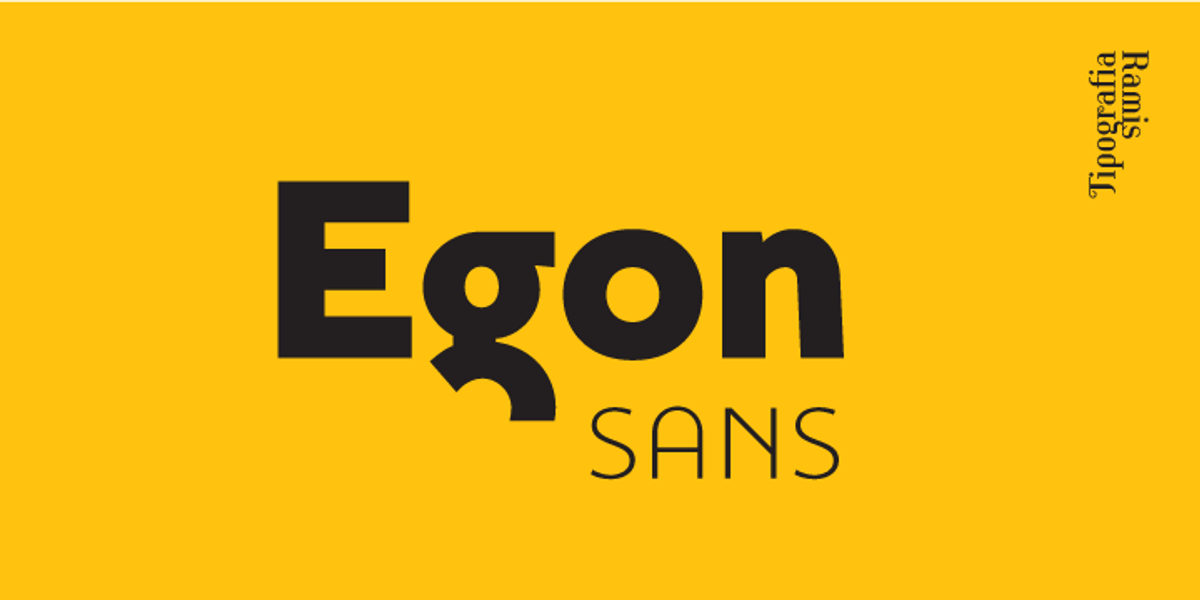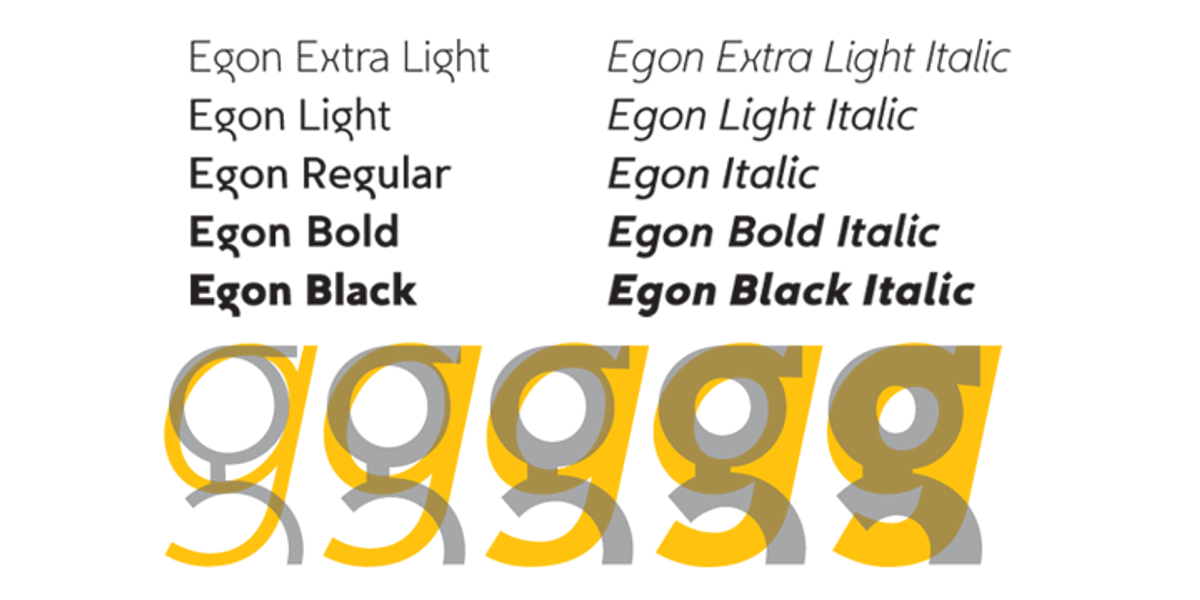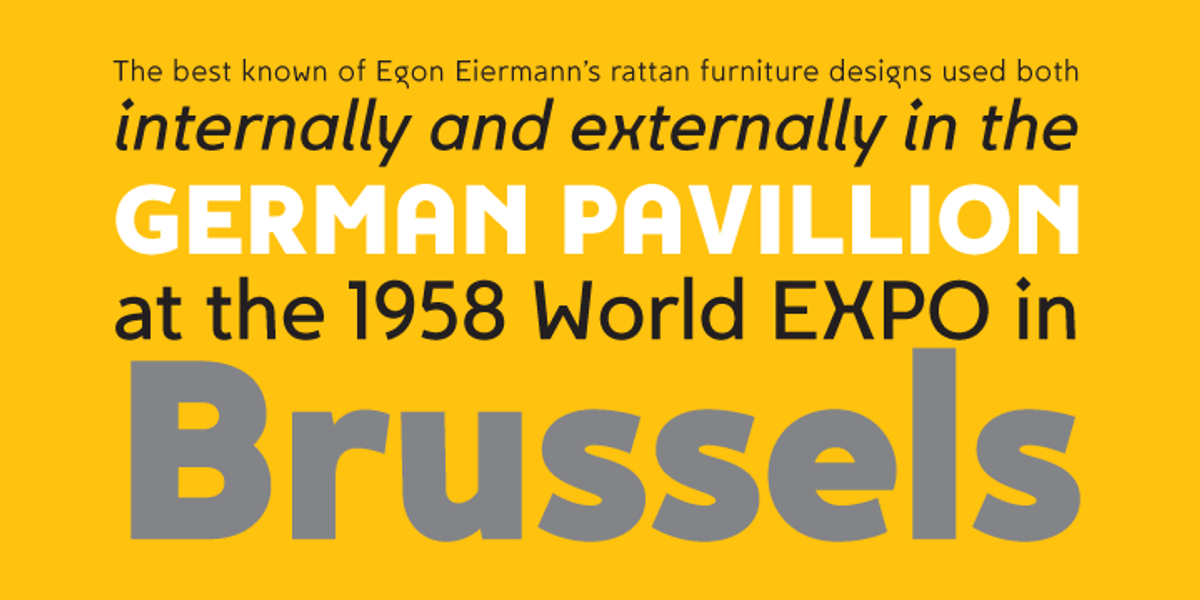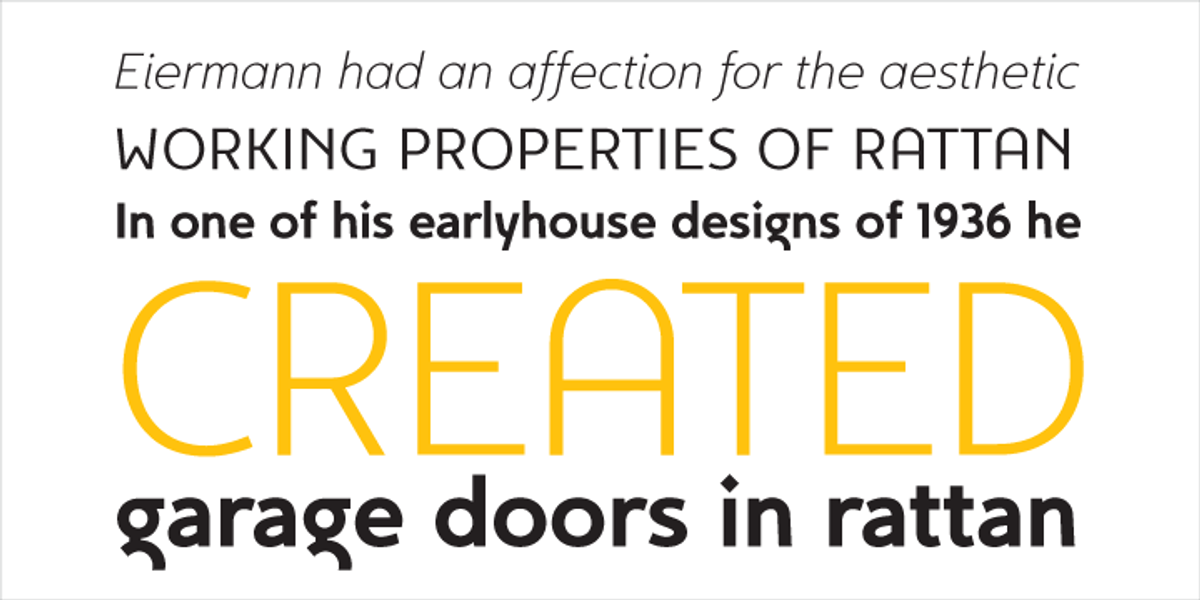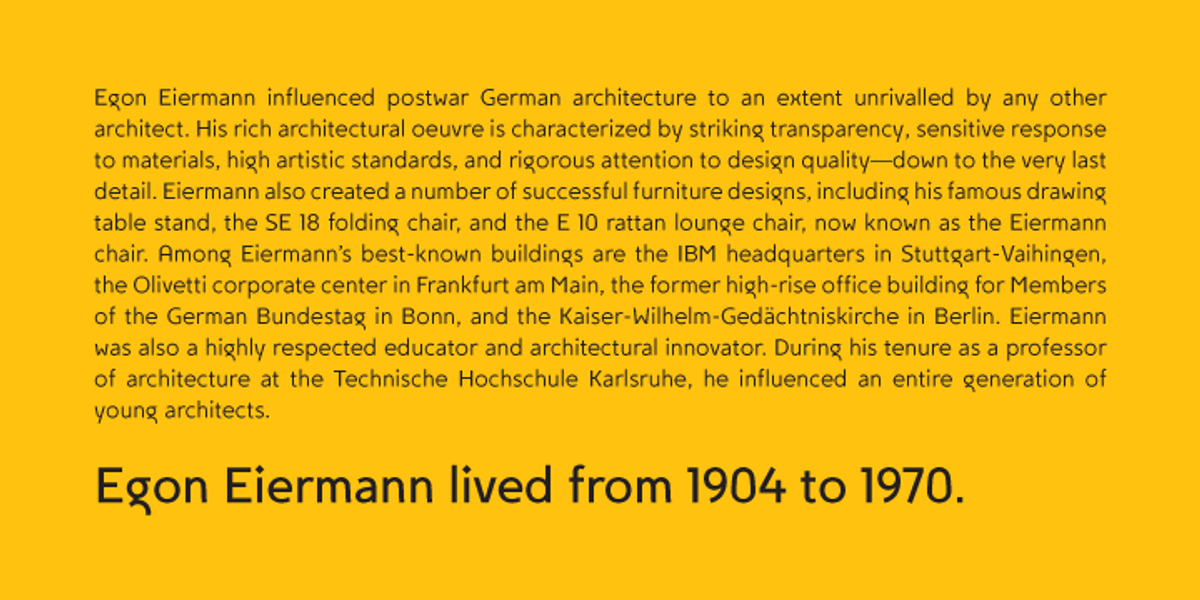
Egon Sans
Egon Sans is a geometric sans serif typeface family designed for both text and display use. It offers ten styles encompassing extra-light to black weights in roman and italic variations. Egon Sans' clean and modern aesthetic makes it suitable for a wide range of applications, including logos, posters, headlines, and paragraphs.